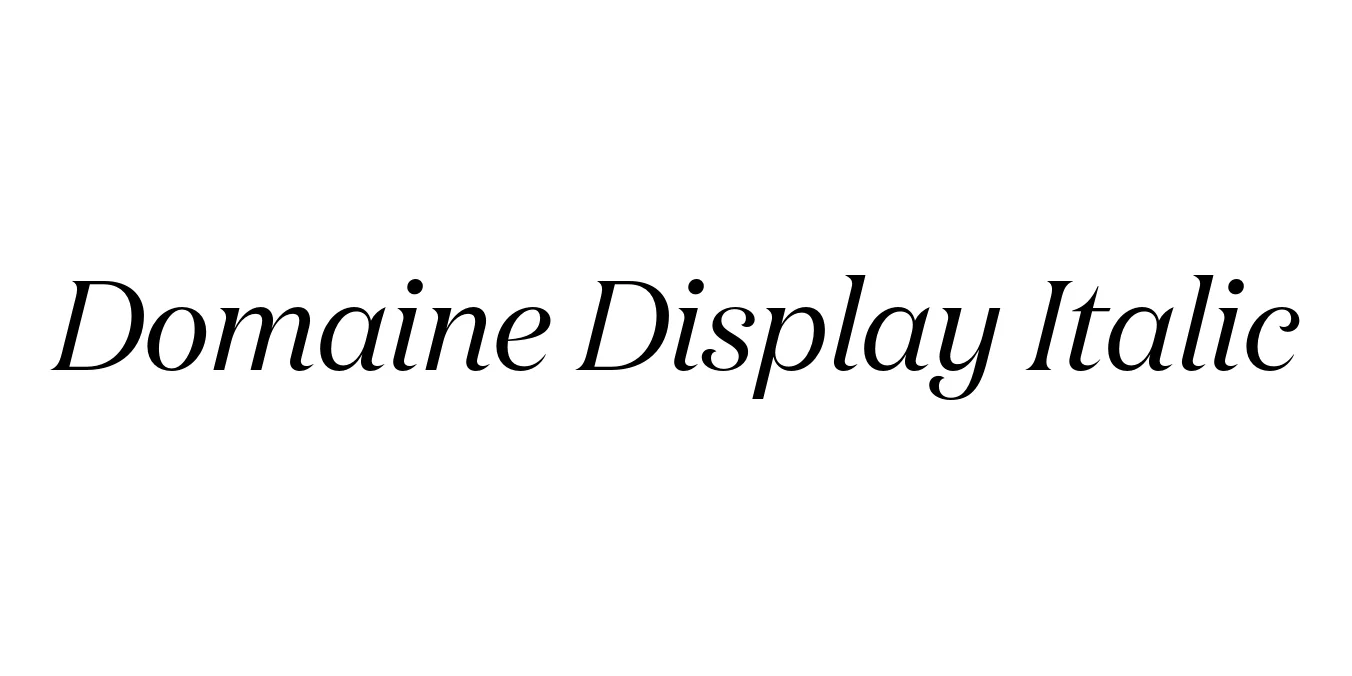
Domaine Display Italic
Designed by Kris Sowersby
Domaine Display Italic was released in 2013 by the renowned New Zealand-based designer Kris Sowersby of the Klim Type Foundry. This typeface is a sophisticated exploration of the 19th-century Latin style, characterized by its high contrast and sharp, triangular serifs. While many high-contrast serifs lean into the rigid geometry of Didones, Domaine draws inspiration from the more fluid and curvaceous forms of historical French and Scotch Roman influences, resulting in a typeface that is both elegant and authoritative.
The Italic variant of Domaine Display is particularly celebrated for its graceful, calligraphic flow. It features dramatic flares and sharp terminals that create a sense of movement and luxury on the page. Designed primarily for large-scale use, it excels in environments where its intricate details and sophisticated personality can shine, making it a staple for premium editorial design and high-end fashion branding across the globe.
Domaine Display Italic Best Uses
Perfect for sophisticated magazine headlines and feature article titles.
Ideal for luxury labels, high-end perfume packaging, and boutique identities.
Adds a touch of class to digital mastheads and hero sections for lifestyle blogs.
Brings an air of exclusivity and elegance to high-profile event stationery.